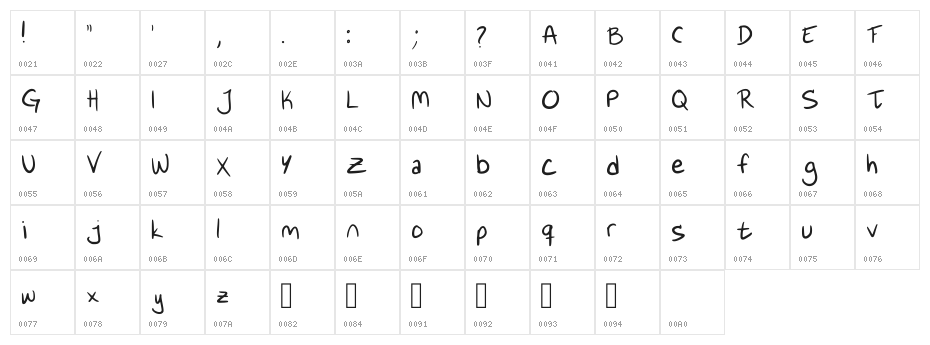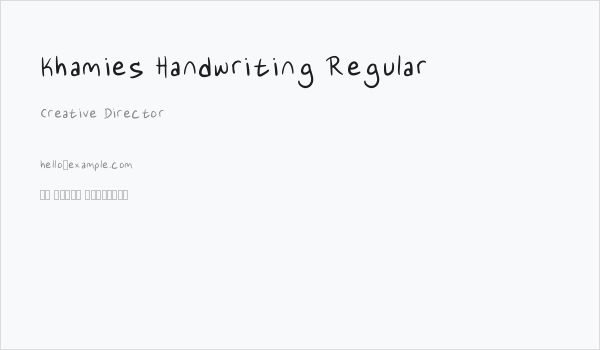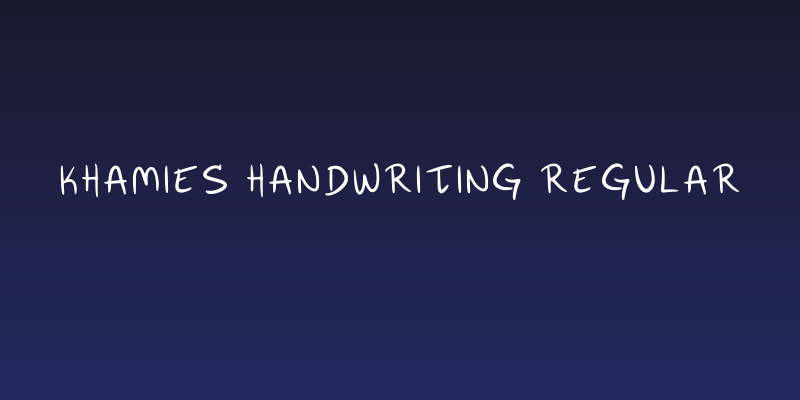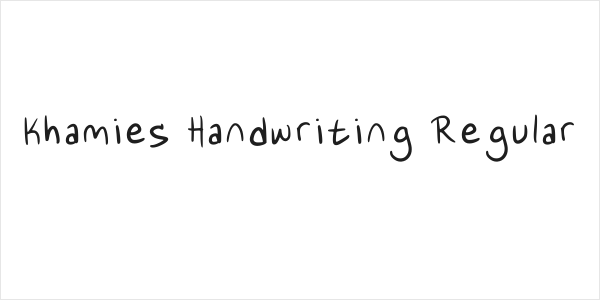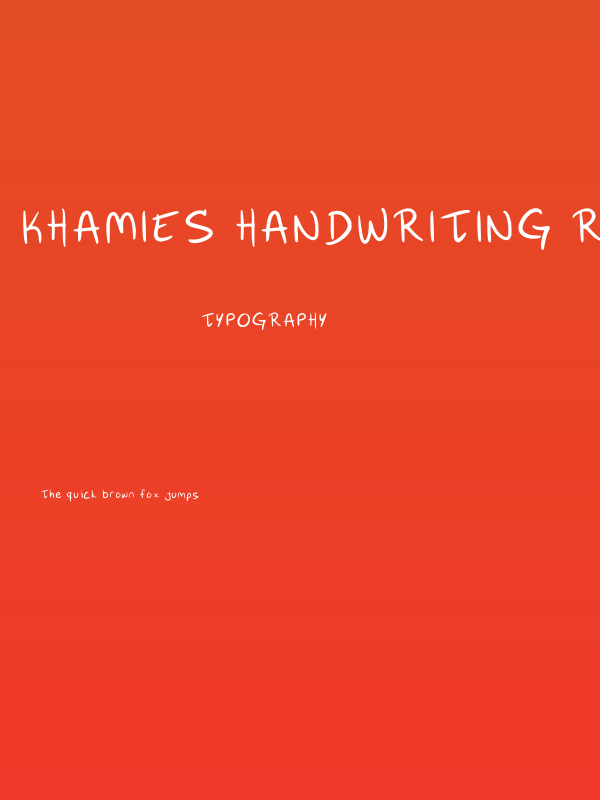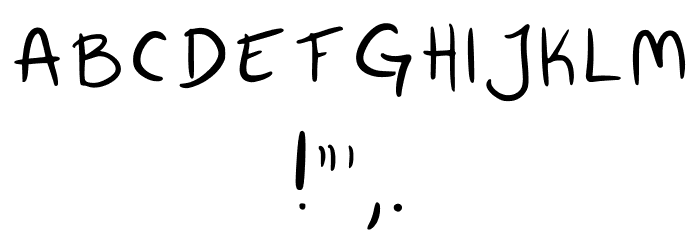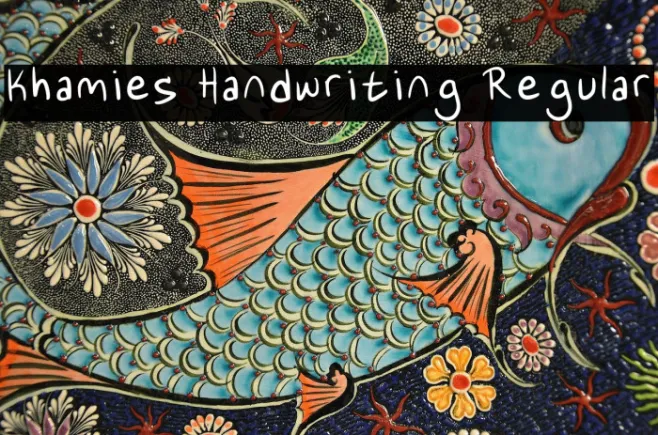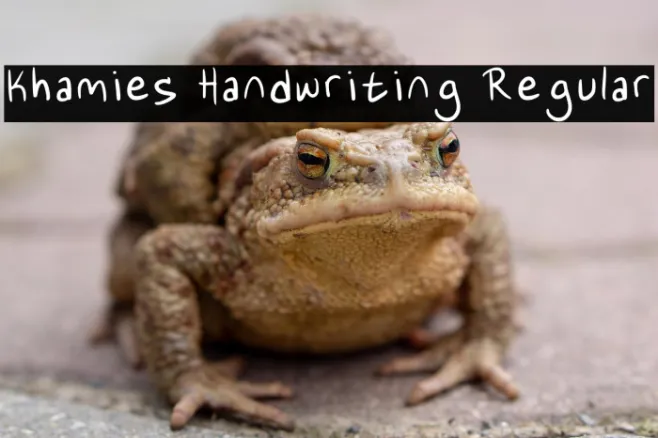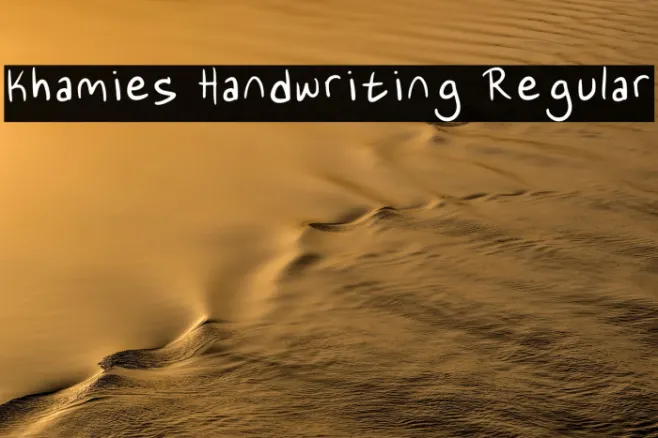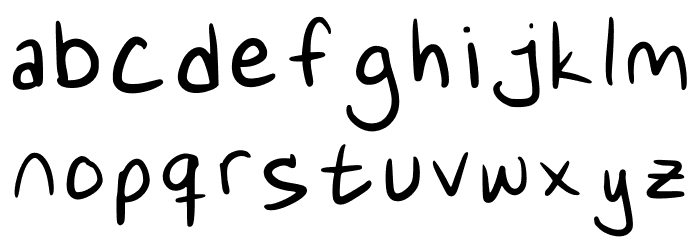
Khamies Handwriting Regular Font
Khamies Handwriting Regular Description
This font exudes a casual and friendly vibe, characterized by its handwritten style that mimics natural penmanship. The letters are slightly irregular, adding a personal touch and warmth to the text. The strokes are smooth and consistent, with a medium thickness that ensures readability while maintaining a relaxed appearance. The font's playful nature makes it suitable for informal settings, where a touch of personality is desired. Its simplicity and charm make it versatile for various creative projects.
| Proposed Projects | Ideal for greeting cards, personal notes, children's books, and creative projects that require a personal touch. |